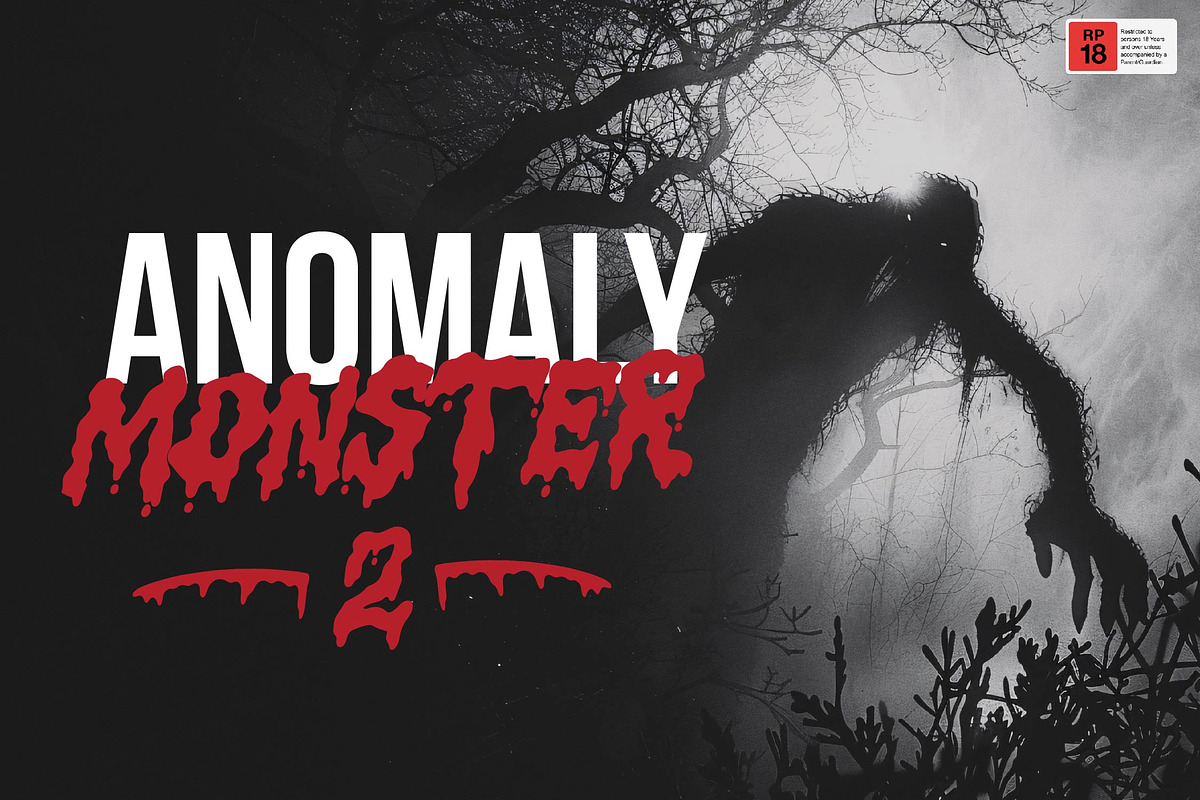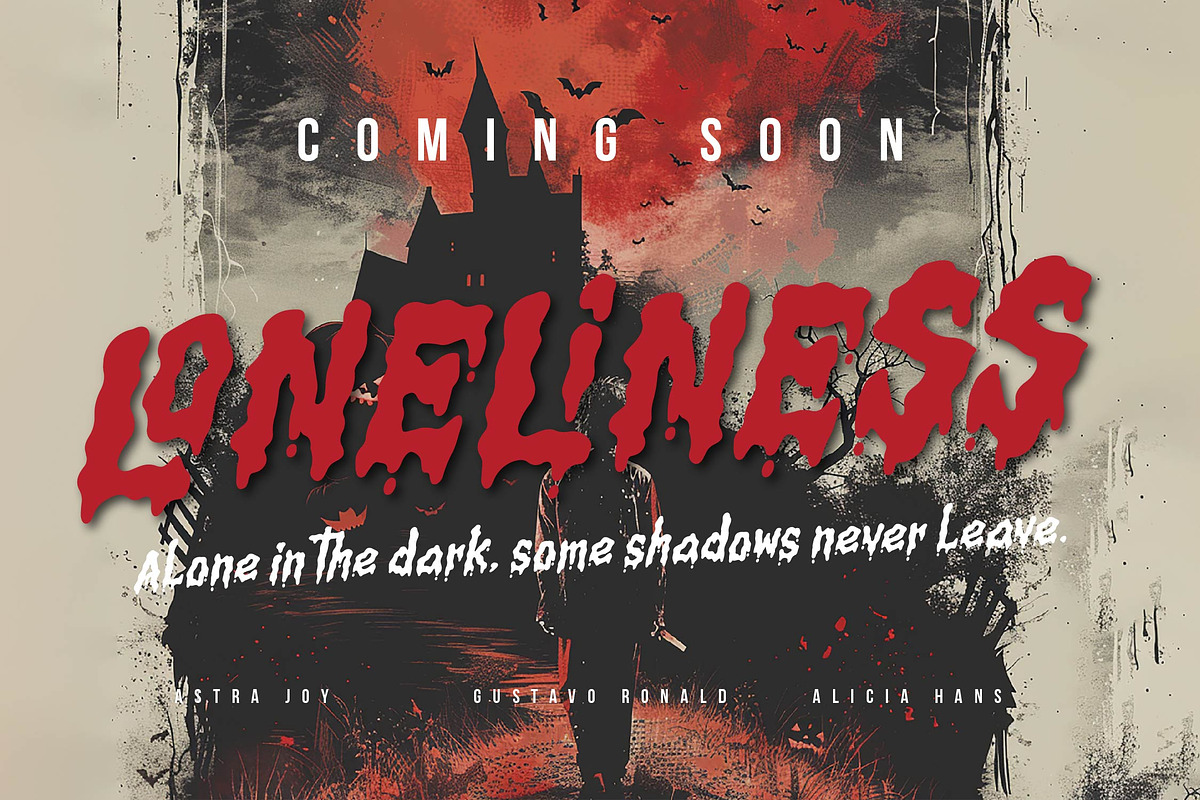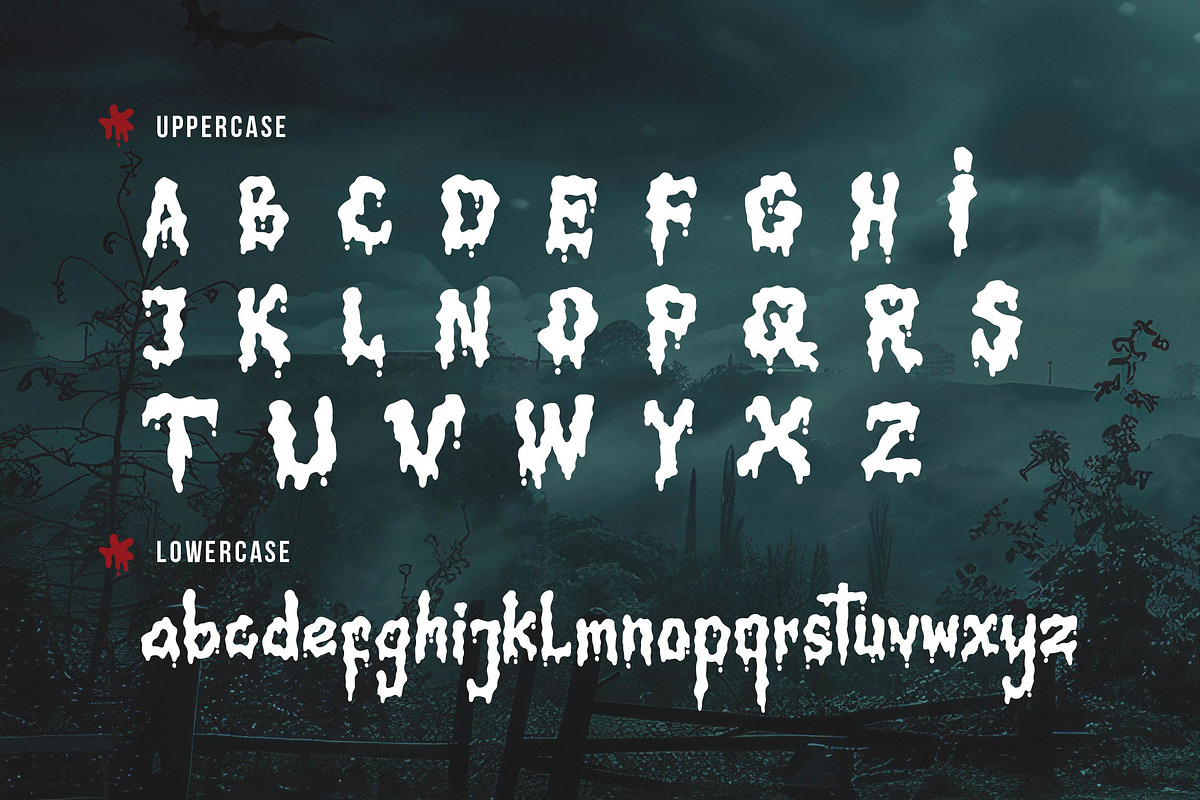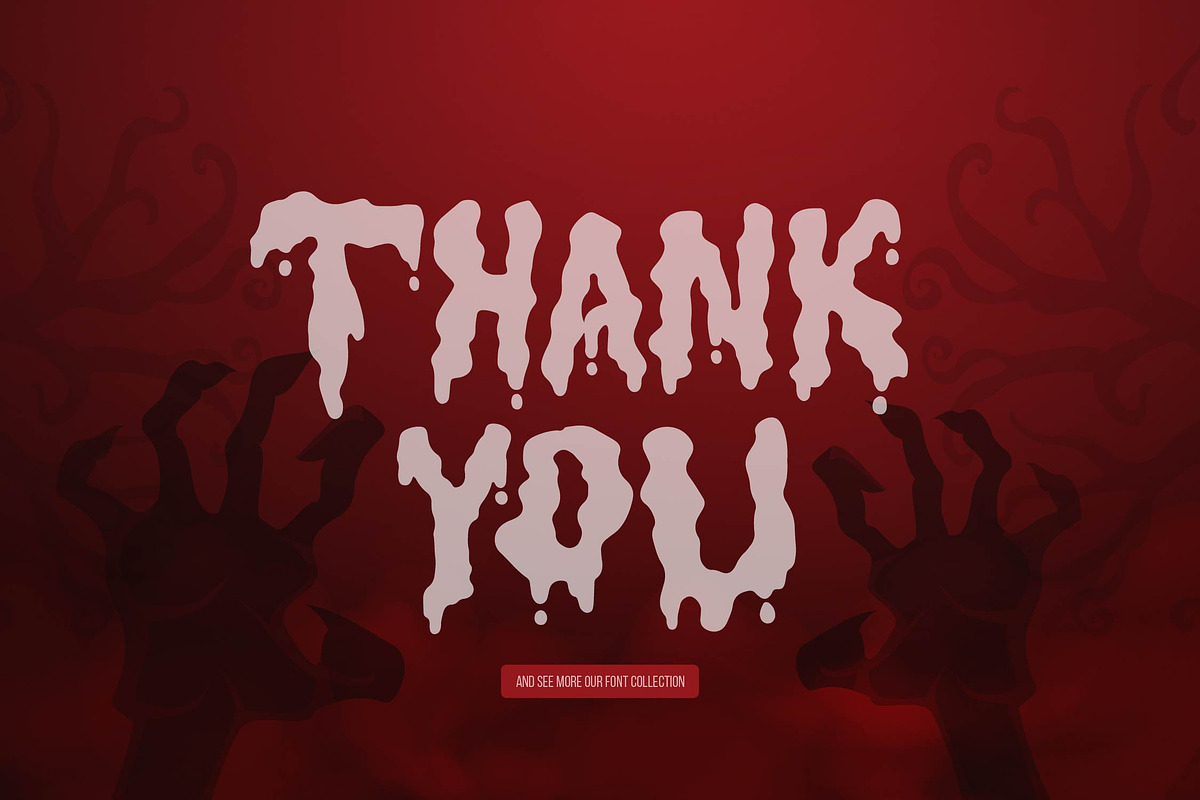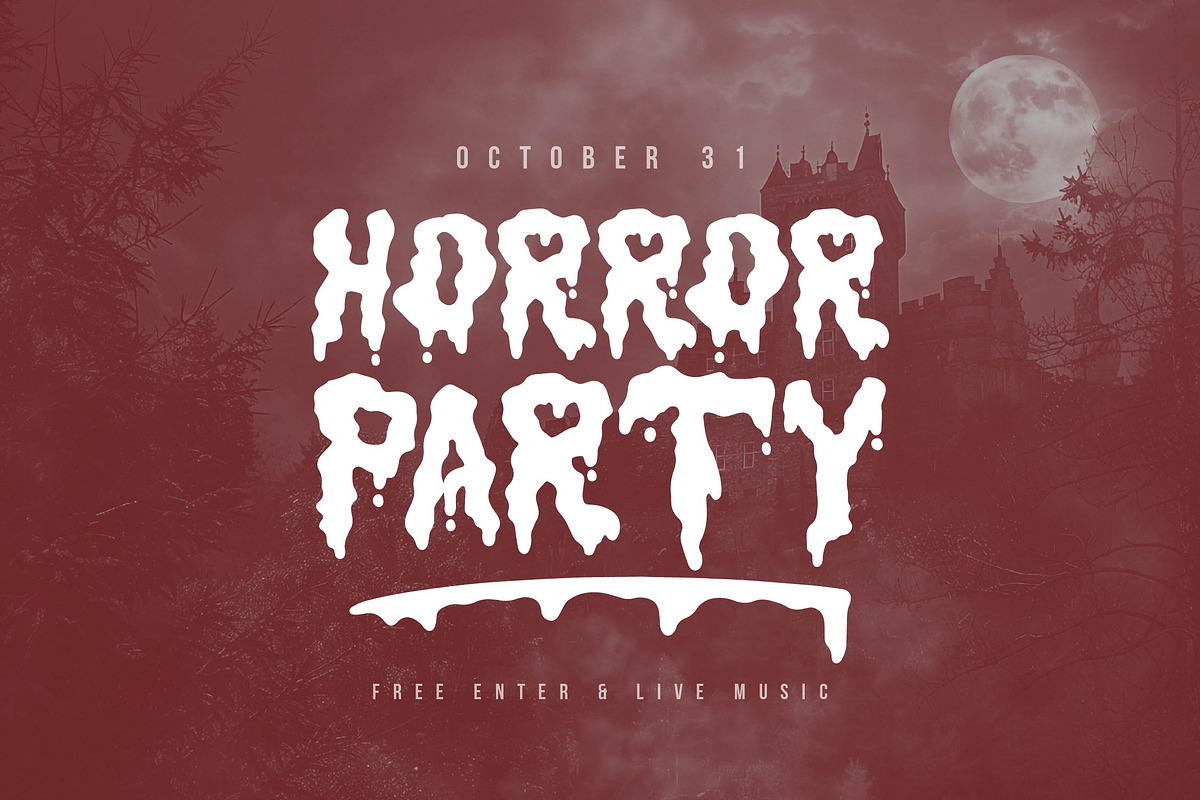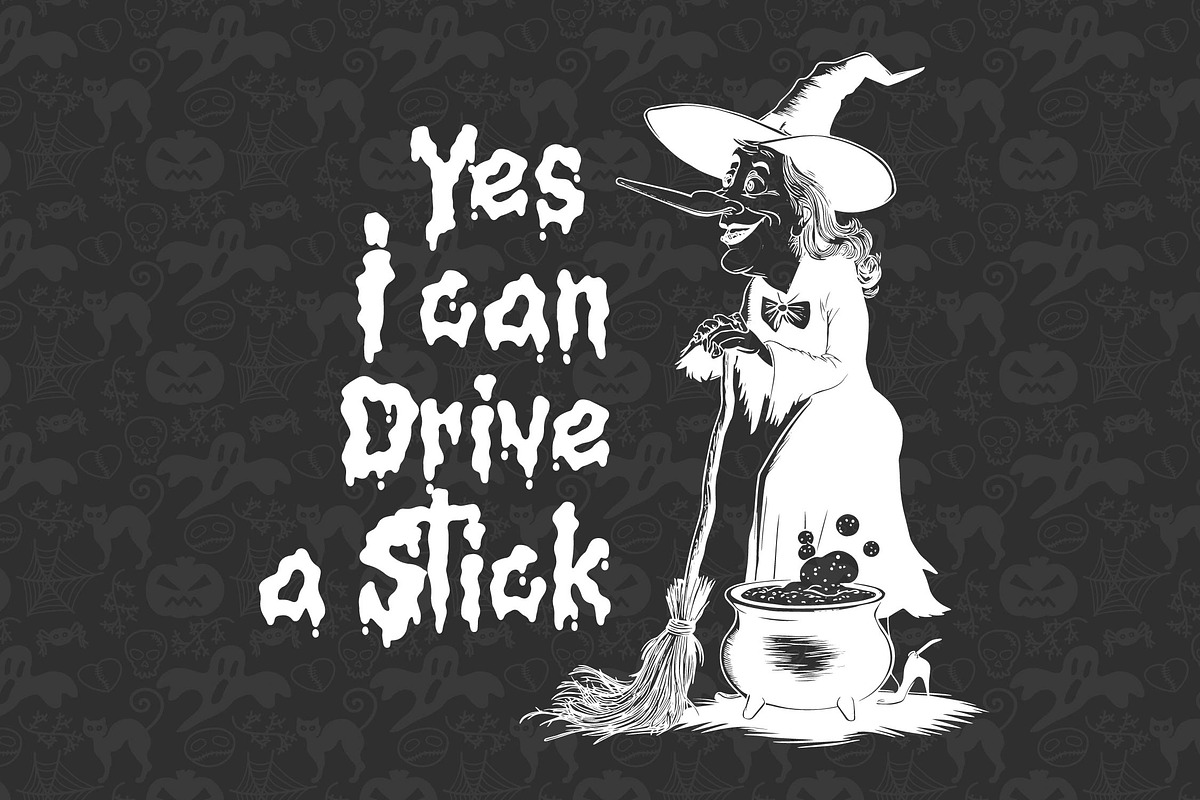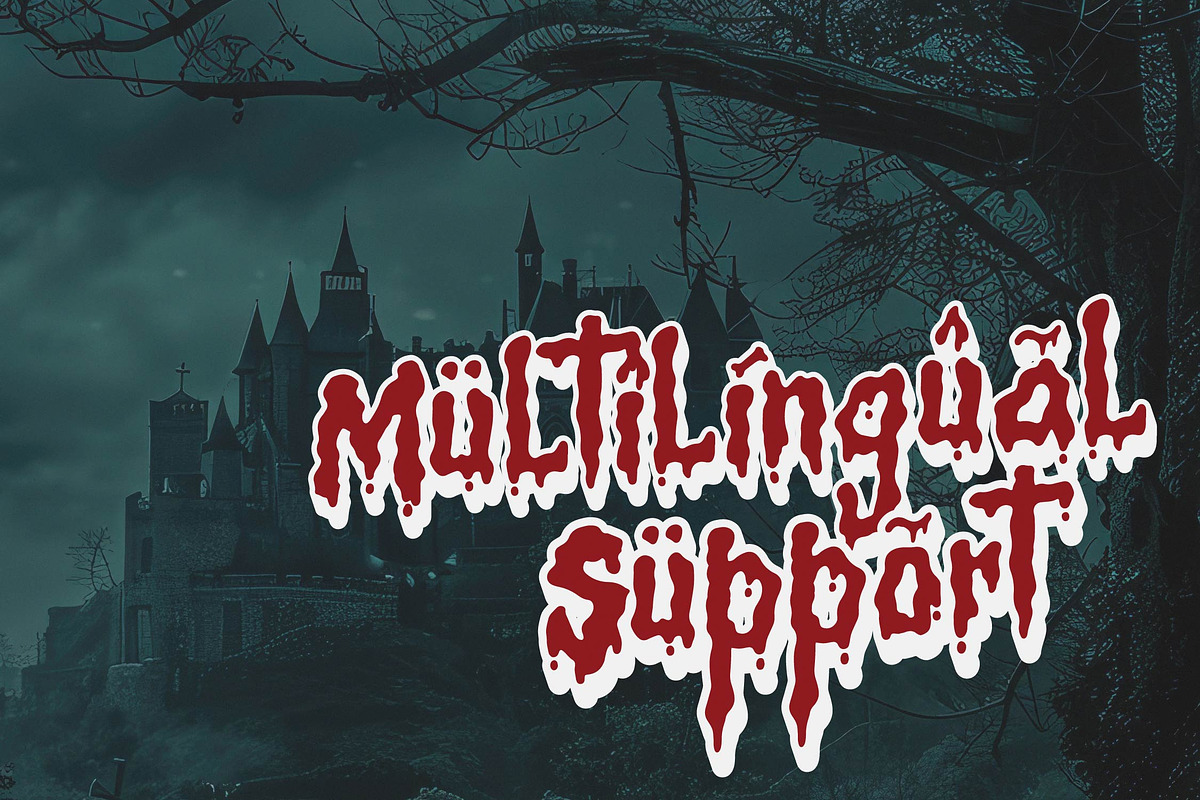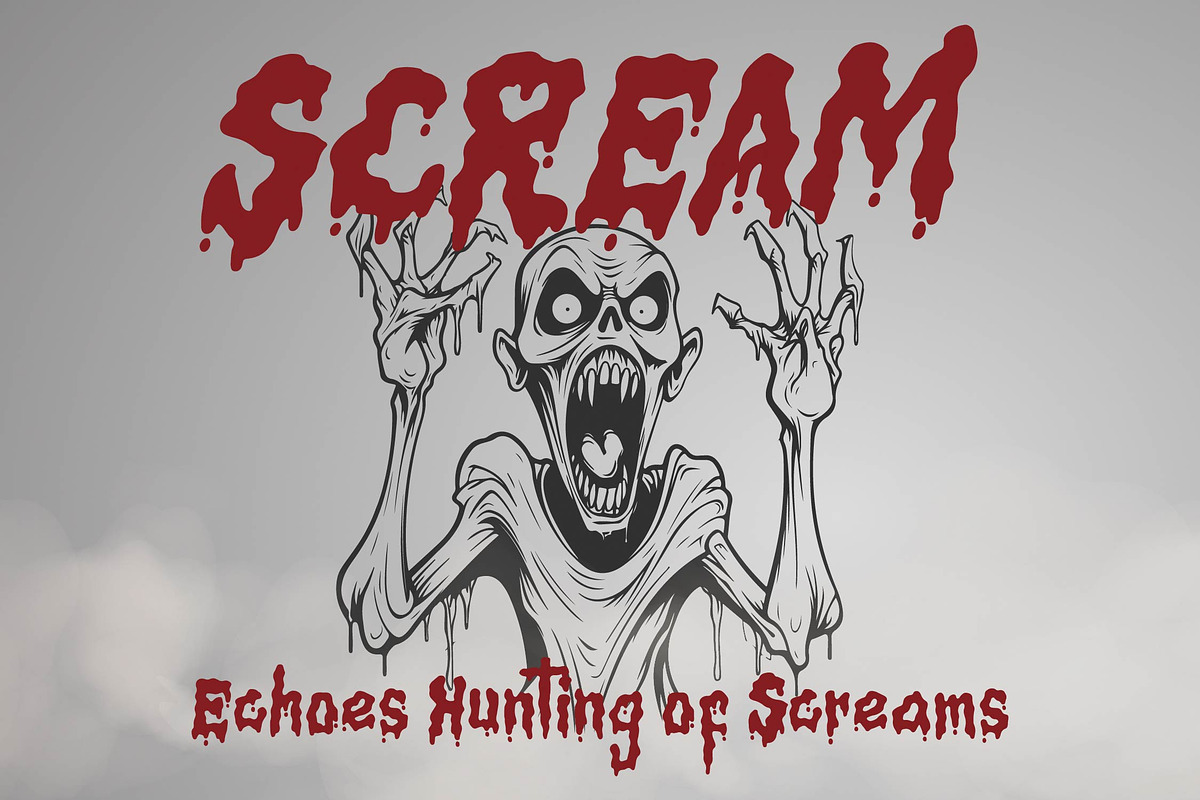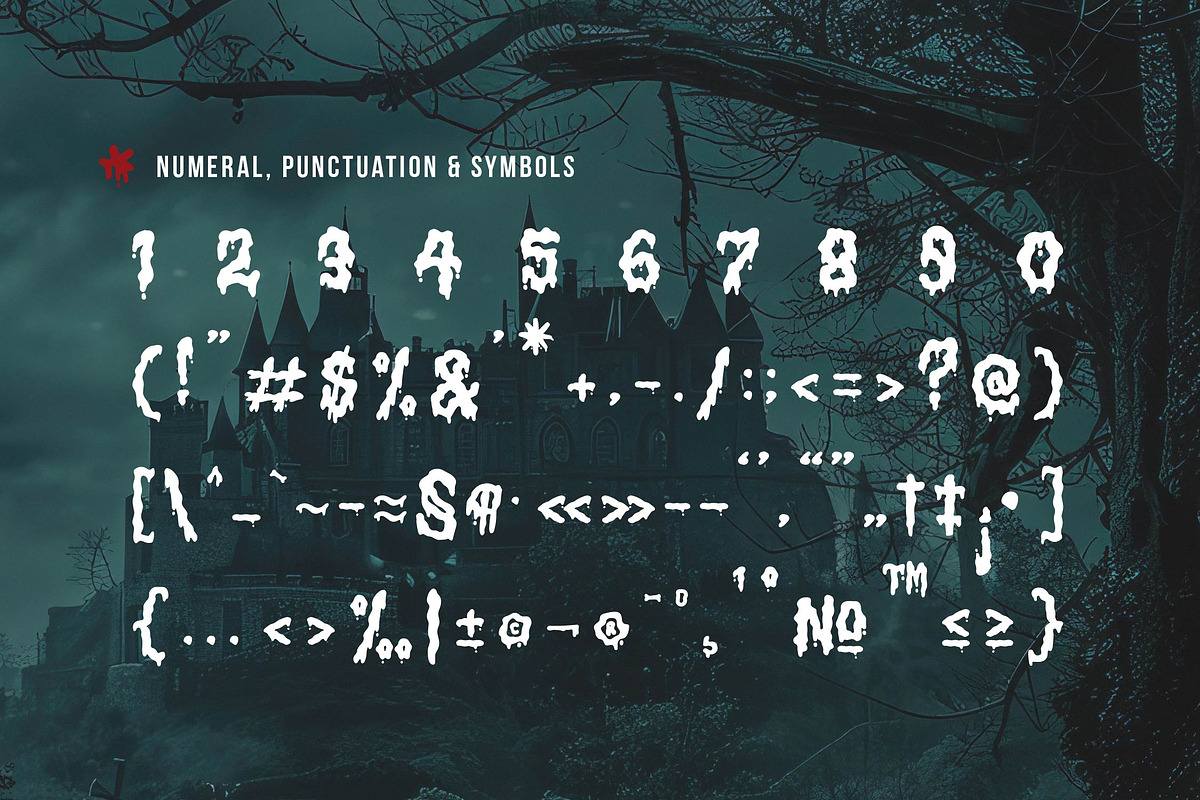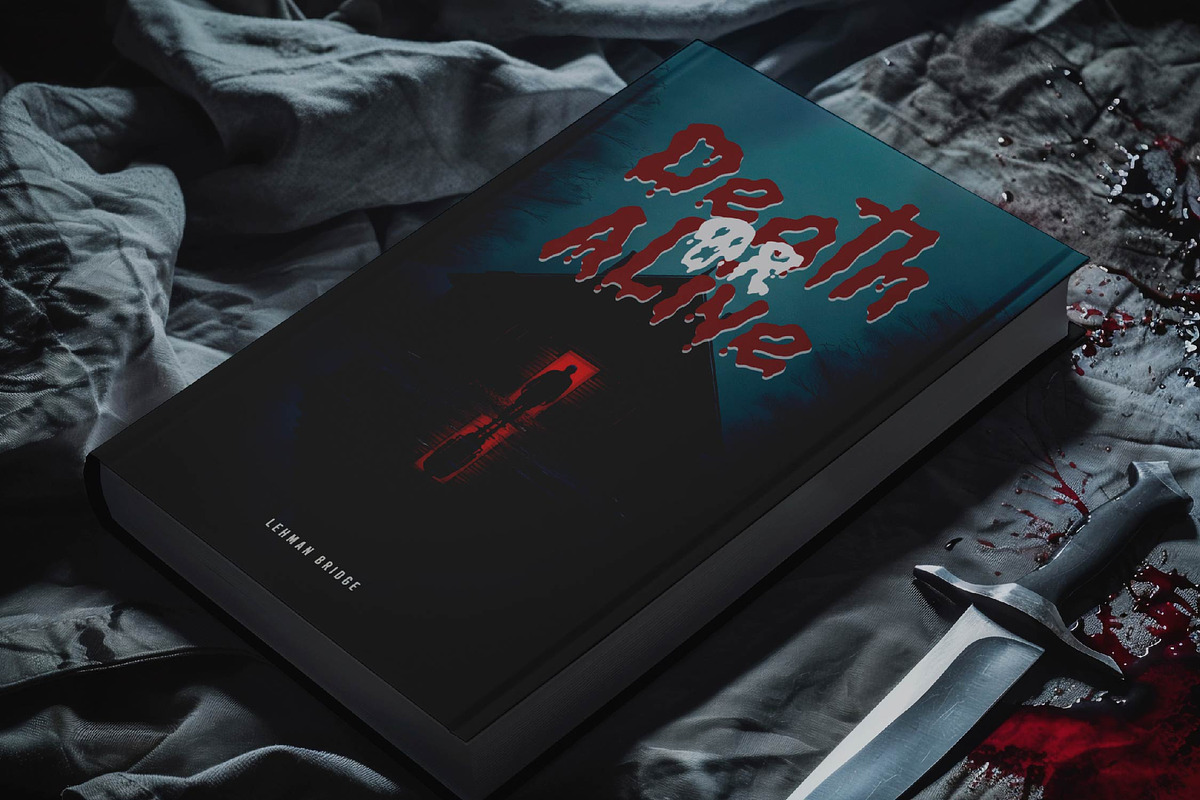
Nocturnus Sigil | Horror Font
Nocturnus Sigil | Horror Font, from Denustudios, suitable for any projects such as: logos, branding projects, homeware designs, product packaging, mugs, quotes, posters, shopping bags, t-shirts, book covers, name card, invitation cards, greeting cards, label, photography, watermark, special events, and all your other lovely projects that need a Horror Font taste.